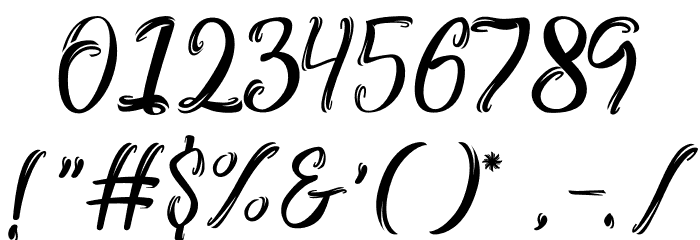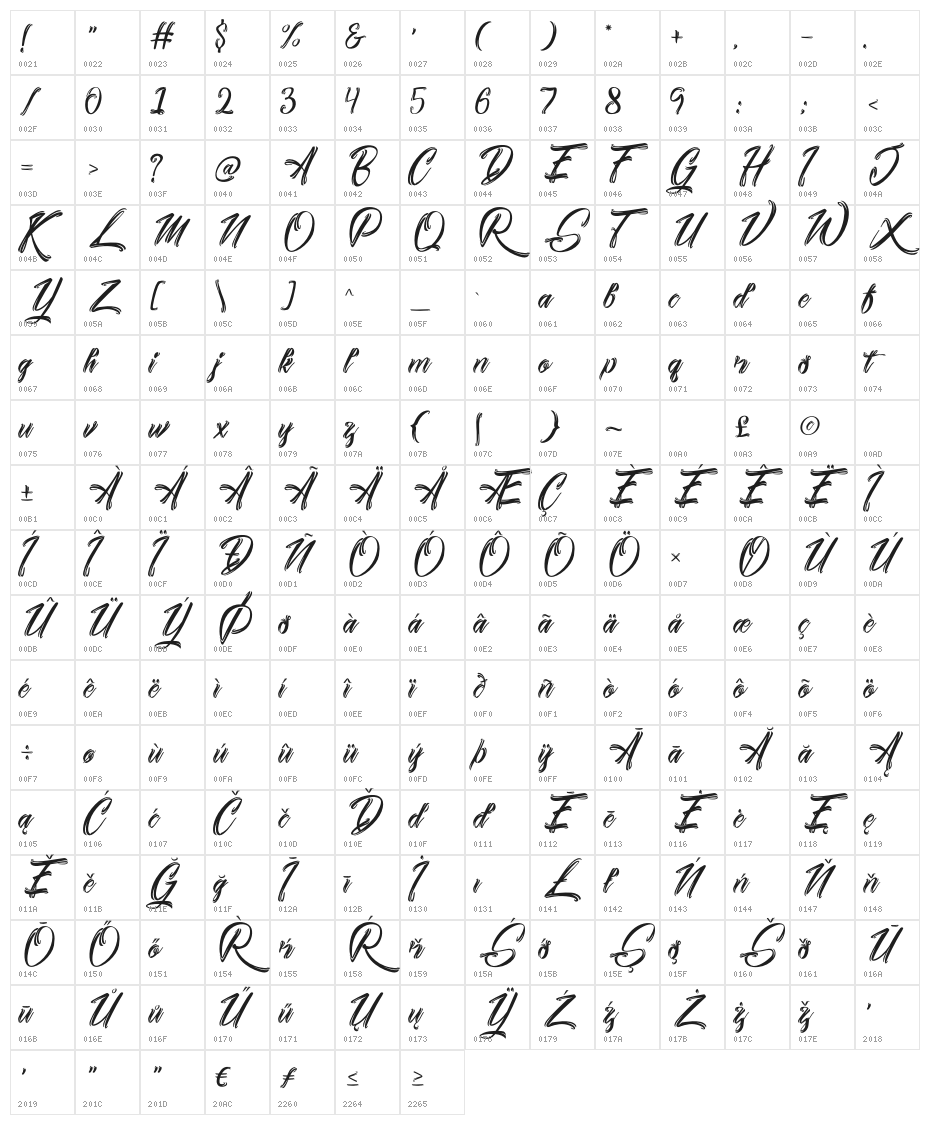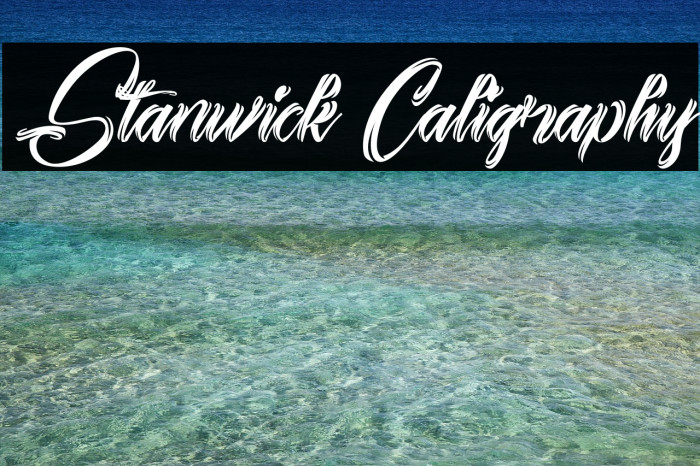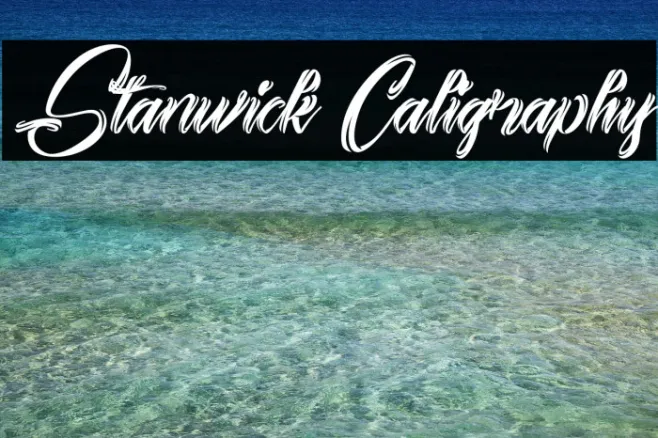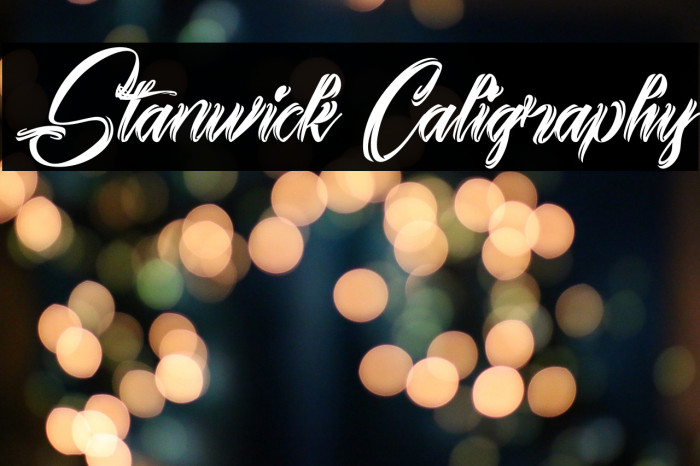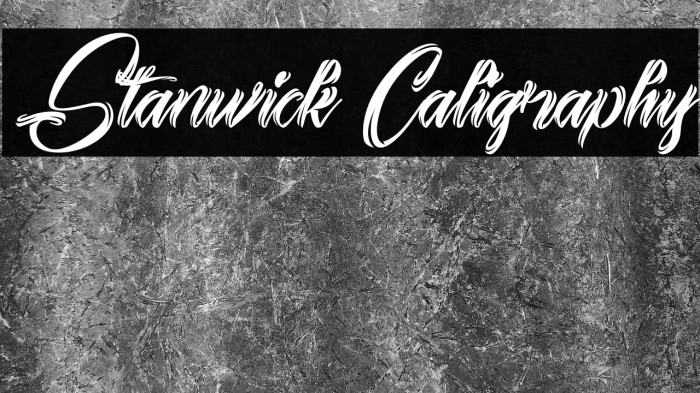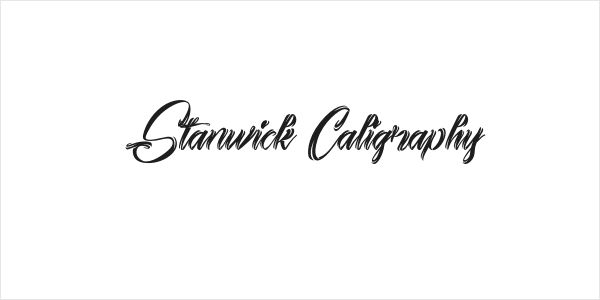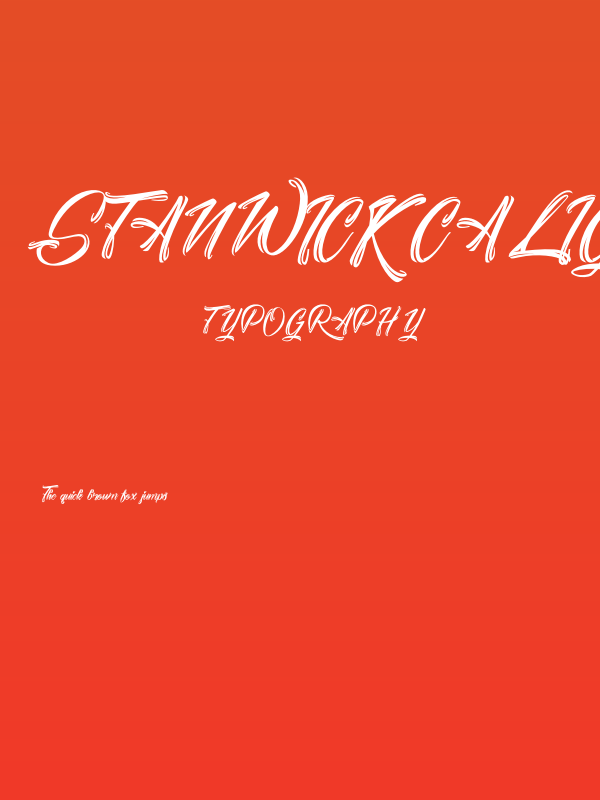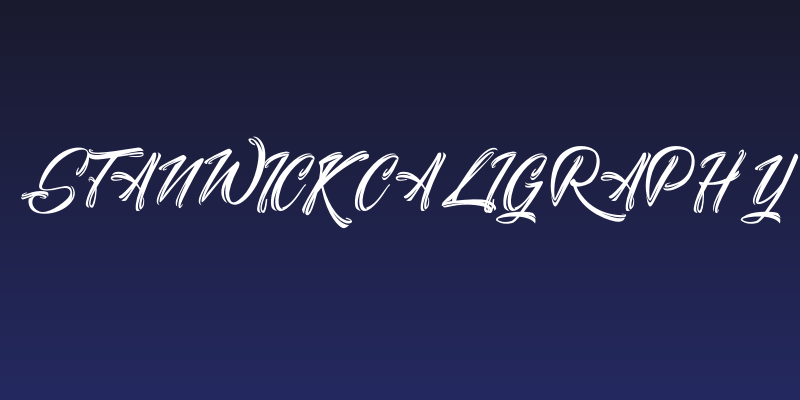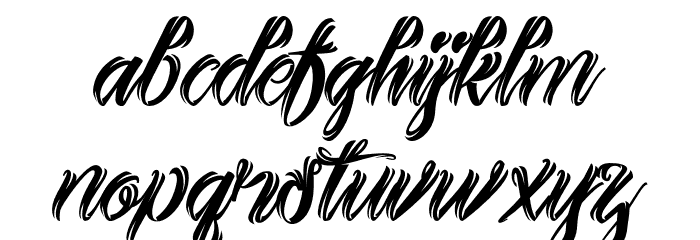
Stanwick Caligraphy Font
Stanwick Caligraphy Description
This font exhibits a flowing, elegant style reminiscent of traditional calligraphy. The characters are intricately designed with sweeping curves and flourishes, giving them a sophisticated and artistic appearance. The uppercase letters are bold and dramatic, while the lowercase letters maintain a graceful continuity. Numbers and special characters are crafted with the same attention to detail, ensuring a cohesive look across all elements. The font's high contrast between thick and thin strokes enhances its decorative appeal, making it ideal for projects that require a touch of elegance and refinement.
| Use Case | Logos, Invitations, Decorative headings |
| Proposed Projects | Ideal for wedding invitations, elegant branding, luxury product packaging, and artistic posters. |